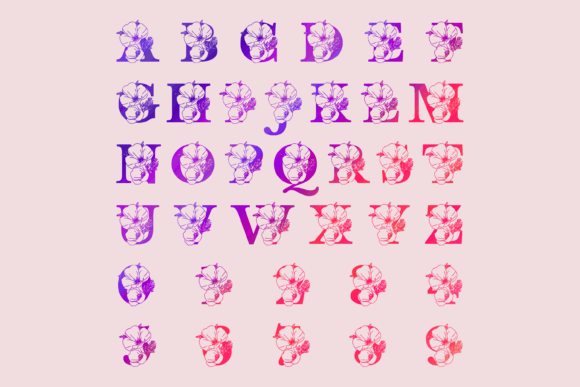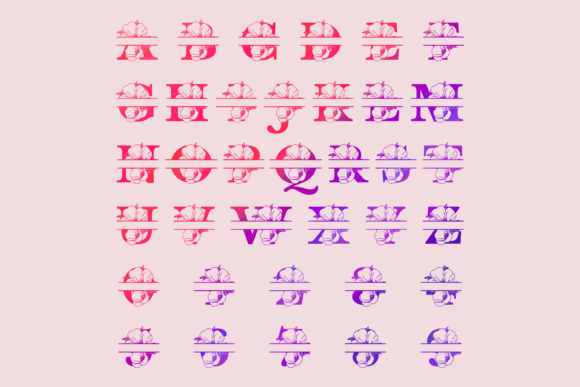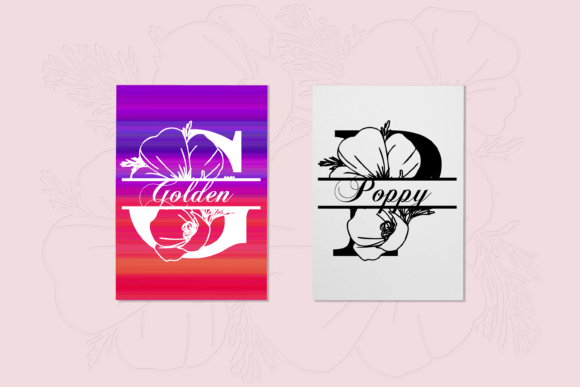
Unlock the Beauty of Nature in Your Designs
As you sit at your desk, surrounded by half-finished projects and scattered ideas, you can’t help but feel a spark of creativity. The perfect font can elevate your craft from ordinary to extraordinary. And that’s exactly what you get with the California Poppy Split Font – a stunning botanical decorative font that adds a touch of elegance to your creations.
This beautiful font consists of two styles: regular and split. Whether you’re working on custom designs, DIY crafts, or just need a lovely touch for your next project, the California Poppy Split Font is the perfect choice. Its delicate, hand-drawn design makes it ideal for adding a personal touch to your work, and its versatility ensures it will complement any style or theme.
California Poppy Split Font Key Features
- Font Family: California Poppy Split, a unique and creative font designed to resemble the California poppy flower.
- Unique Characteristics: Features a split design, where the upper and lower case letters are separated, creating a visually striking effect.
California Poppy Split Font Review
Overall, I’d say the California Poppy Split Font has some lovely qualities, but also some notable limitations. Let’s start with the good stuff.
✨ The unique split design of the font is quite eye-catching and would be perfect for brands that want to stand out from the crowd. The subtle nod to the California poppy flower is also a nice touch, giving the font a bit of personality.
✨ The font is also highly customizable, with a wide range of weights and styles available. This makes it easy to use in a variety of different contexts, from headings to body text.
⚠️ One of the main limitations of the California Poppy Split Font is its limited legibility at small font sizes. While it looks great at larger sizes, it can become difficult to read at smaller sizes, which may limit its use in certain applications.
⚠️ Additionally, the font’s split design can make it difficult to use in certain contexts, such as in body text where a more traditional font would be preferred.
While the California Poppy Split Font has some notable limitations, it’s still a great choice for brands that want to add a bit of personality to their design. With its unique split design and high level of customizability, it’s a great option for logos, headings, and other applications where a bit of flair is needed.
Recommendations
- Use the California Poppy Split Font sparingly, reserving it for headings and logos where its unique design can shine.
- Experiment with different weights and styles to find the perfect fit for your brand.
- Avoid using the font in body text or other contexts where legibility is a top priority.
Tips for getting the most out of it:
- Use the font to create a whimsical and playful design.
- Pair the font with bright and bold colors to make it stand out.
Tips for getting the most out of it:
- Use the font to create a hand-drawn or watercolor effect.
Tips for getting the most out of it:
- Use the font to create a bold and eye-catching headline.
- Pair the font with a clean and simple design to make it stand out.
The California Poppy Split Font is perfect for:
- Use the California Poppy Split Font as the main title font for the invitation.
- Combine it with a mix of serif and script fonts for the body text.
- Use watercolor illustrations of California wildflowers and greenery to add a whimsical touch.
- Add a subtle gradient background to give the invitation a soft, dreamy feel.
Create a beautiful and unique garden party invitation that captures the essence of California’s natural beauty.
How to use California Poppy Split Font:
Project 2: California-Inspired Quote Print
Create a stunning quote print that celebrates the California state flower and the state’s carefree spirit.
How to use California Poppy Split Font:
Project 3: California-Themed Wedding Stationery
Create a beautiful and elegant wedding stationery set that captures the essence of a California wedding.
How to use California Poppy Split Font: